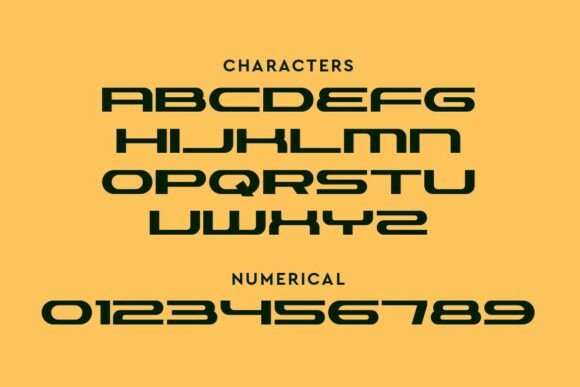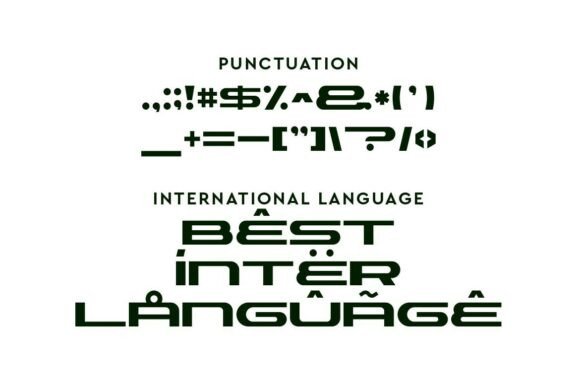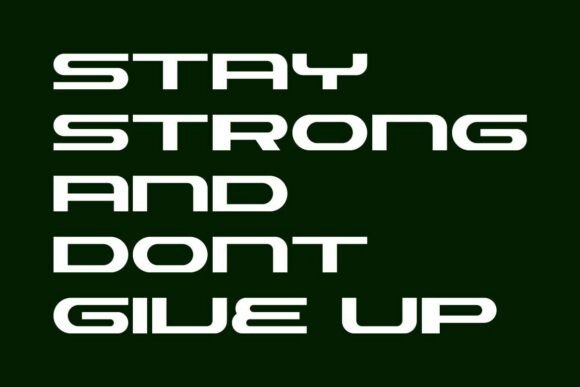
Introduction to Powero Font
As a designer, you’ve likely found yourself staring at a blank canvas, waiting for the perfect font to bring your creative project to life. That’s where Powero Font comes in – a modern extended sans serif font that’s designed to make a statement. With its wide proportions, sharp edges, and industrial strength, Powero Font is the perfect addition to any design.
Imagine being able to convey a sense of power and energy in your designs, without sacrificing readability or style. That’s exactly what Powero Font delivers. Whether you’re working on a sports branding project, creating bold logos, or designing editorial layouts, Powero Font is a high-quality design resource that’s sure to impress.
What sets Powero Font apart is its versatility and adaptability. From free download to high-quality print, this font can be used in a variety of contexts, from digital graphics to urban-inspired visuals. And with its transparent background, you can easily integrate it into your designs without worrying about distractions. So why settle for a generic font when you can make a statement with Powero Font?
Key Features of Powero Font
- Unique, modern font with a transparent background, allowing for versatile usage.
- Powero Font is optimized for use in logos, branding materials, and other creative projects that require a unique touch.
Honest Review: Powero Font
I recently stumbled upon the Powero Font while searching for a high-quality design resource for a creative project. I must say, I was pleasantly surprised by its quality and versatility.
Here are some of the things that work well with the Powero Font:
- ✨ High-quality glyphs and characters that make it perfect for both print and digital designs
- ✨ A wide range of weights and styles, making it suitable for various creative projects
- ⚠️ The font doesn’t have a transparent background, which might be a issue for designers who want to use it as a logo or icon
- ⚠️ The font is not as extensive as some other popular font families, with limited language support
Overall, I think the Powero Font is a solid choice for designers who are looking for a high-quality, free download font for their creative projects. While it may not be perfect, its strengths outweigh its limitations, making it a great addition to any design resource library.
Common Use Cases for Powero Font
Powero Font is ideal for creative projects, such as graphic designs, presentations, and documents. Its high-quality design and transparent background make it a versatile resource for designers and non-designers alike.
Alternatives to Powero Font
Open Sans is a high-quality, free download font designed by Steve Matteson. It’s ideal for use in design resources such as logos, brochures, and websites. Its transparent background and clean lines make it perfect for creative projects that require a modern and sleek look. When to use: For corporate and modern designs, especially those requiring a clean and minimalist aesthetic.
Comparison to Powero Font: Open Sans has a more modern and clean look compared to Powero Font’s more traditional feel. While Powero Font is ideal for creative projects that require a vintage or retro vibe, Open Sans is better suited for contemporary designs.